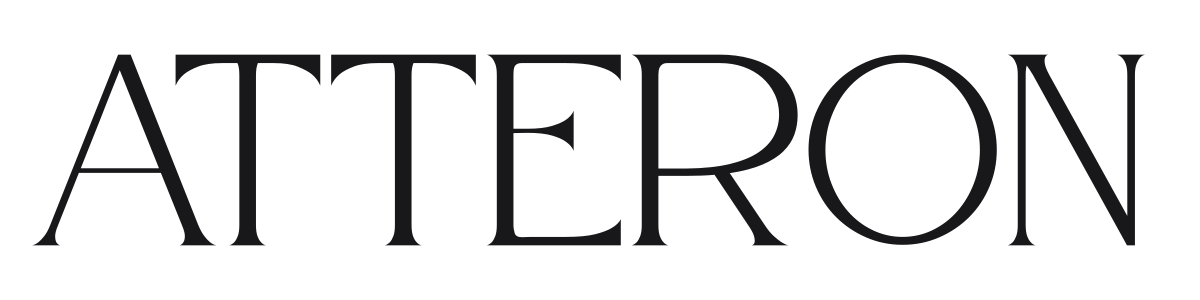
Atteron
Atteron is a high-contrast modern serif with Didone-influenced anatomy, featuring razor-thin hairlines against strong vertical stems. Wide letter spacing and delicate thin serifs give it an airy, editorial quality that reads beautifully at large display sizes. It sits comfortably in the same visual territory as fashion mastheads and luxury brand identities.